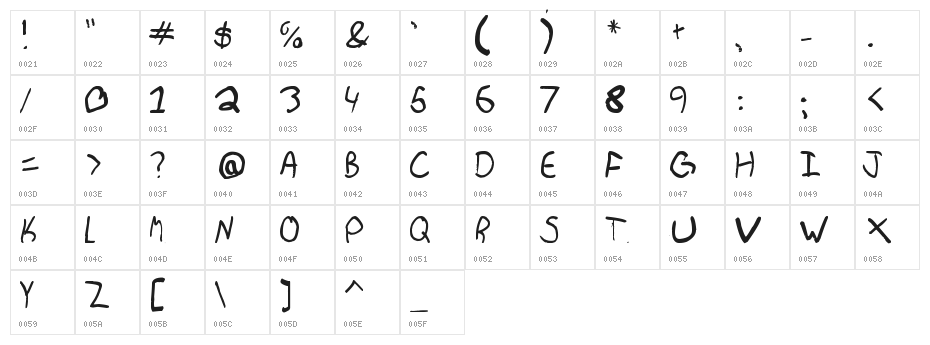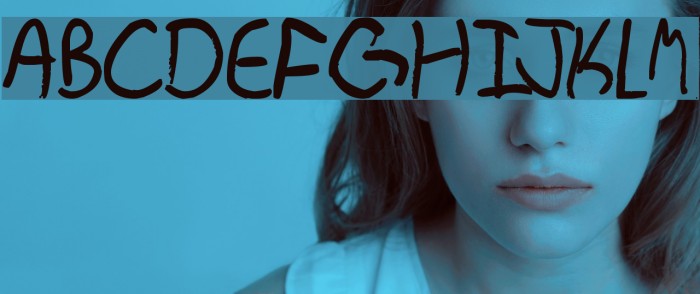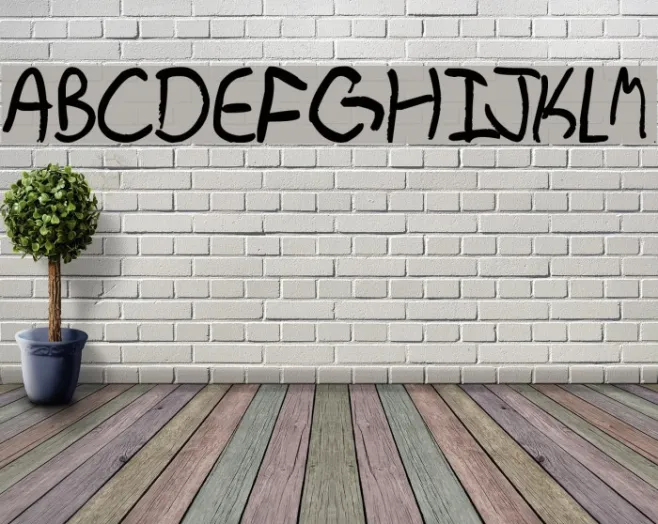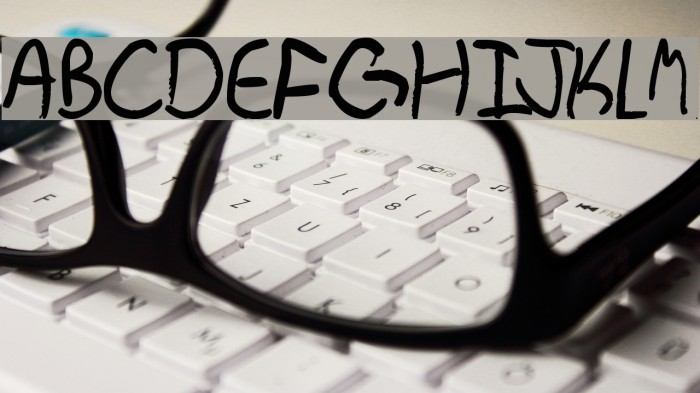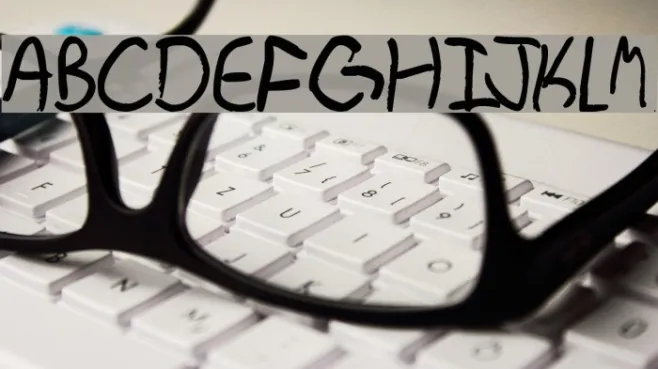
Bradley Hand Font
Bradley Hand Description
This font exudes a casual, handwritten style that mimics the natural flow of penmanship. The characters are slightly irregular, adding a personal and informal touch. The strokes vary in thickness, giving it a dynamic and lively appearance. It captures the essence of a quick, yet legible handwritten note, making it ideal for projects that require a personal or human touch. The font maintains a consistent baseline, ensuring readability while preserving its informal charm.
| Proposed Projects | Ideal for greeting cards, personal notes, invitations, and informal branding projects. |